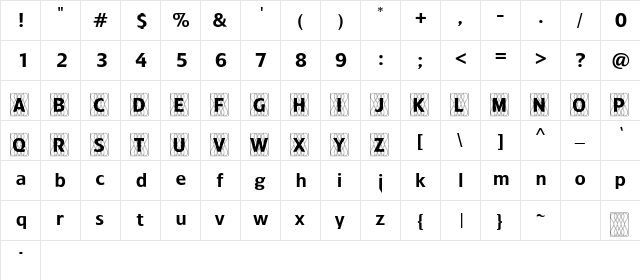
Hooplah Regular
Design Context for Hooplah Typeface
Hooplah takes a measured approach to typography — its balanced proportions and neutral character make it a reliable workhorse for both digital and print work.